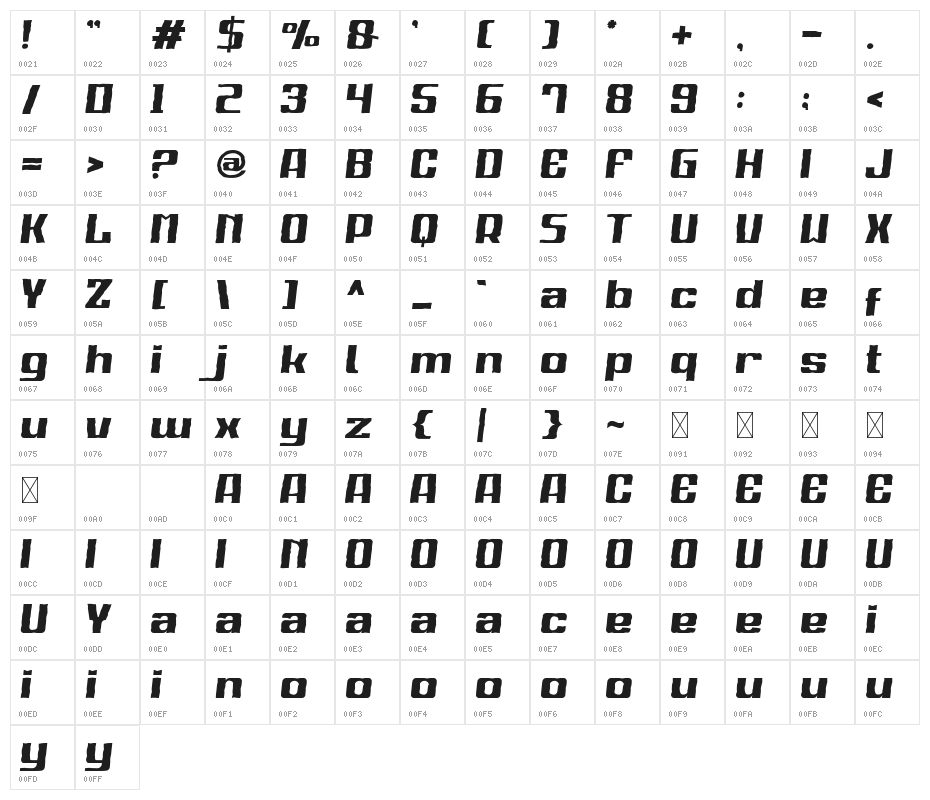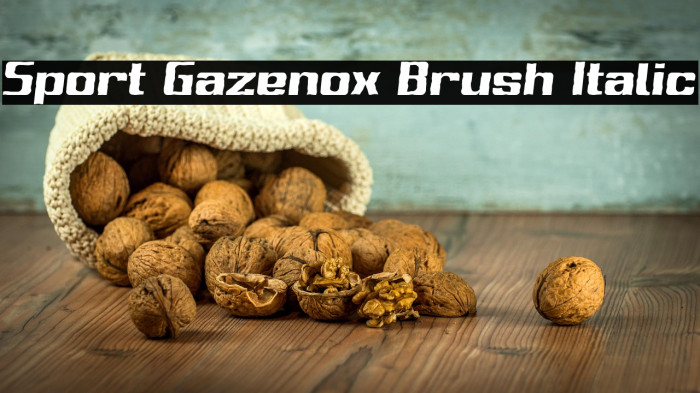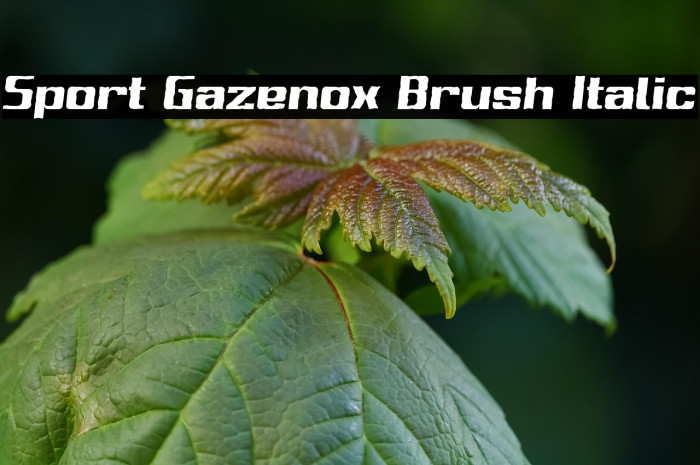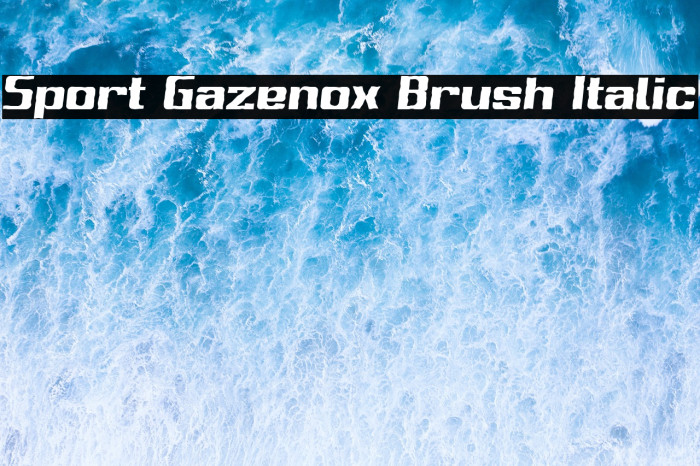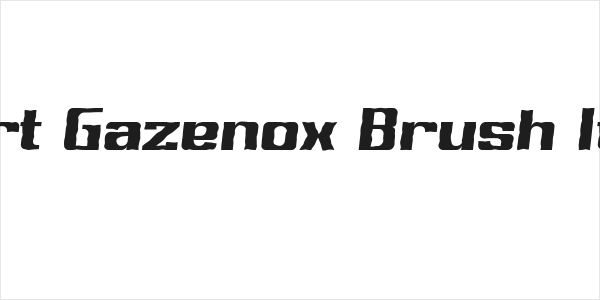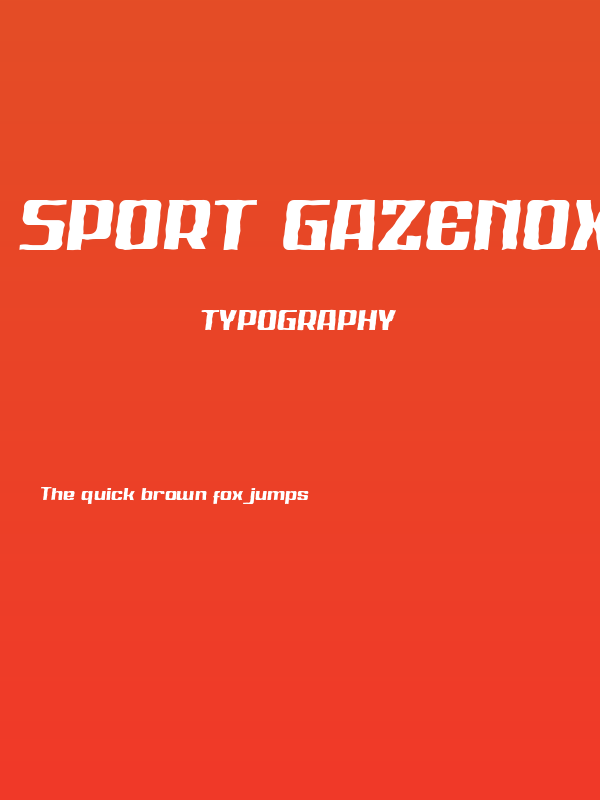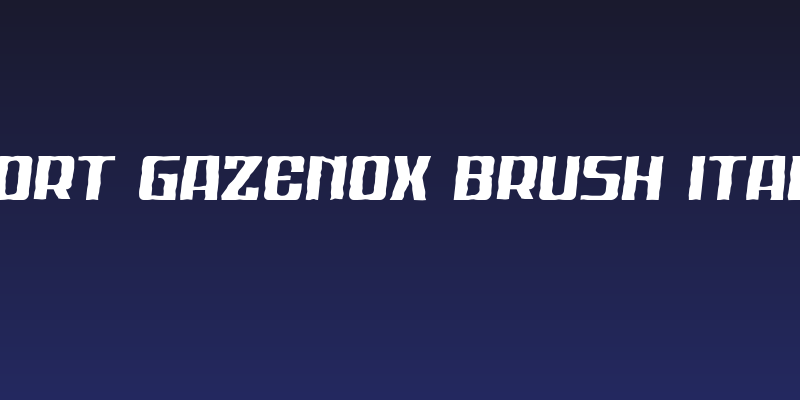
Sport Gazenox Brush Italic Font
Sport Gazenox Brush Italic Description
This font features a dynamic and energetic brush style, characterized by its italicized and bold appearance. The letters exhibit a hand-painted effect, with irregular edges and varying stroke widths that convey a sense of movement and spontaneity. The uppercase and lowercase letters maintain a consistent slant, enhancing the italic nature of the font. The numbers and special characters follow the same stylistic approach, ensuring uniformity across all glyphs. This font's unique brush strokes and bold presence make it ideal for projects that require a strong visual impact.
| Proposed Projects | Ideal for sports branding, dynamic posters, graffiti art, and energetic event promotions. |